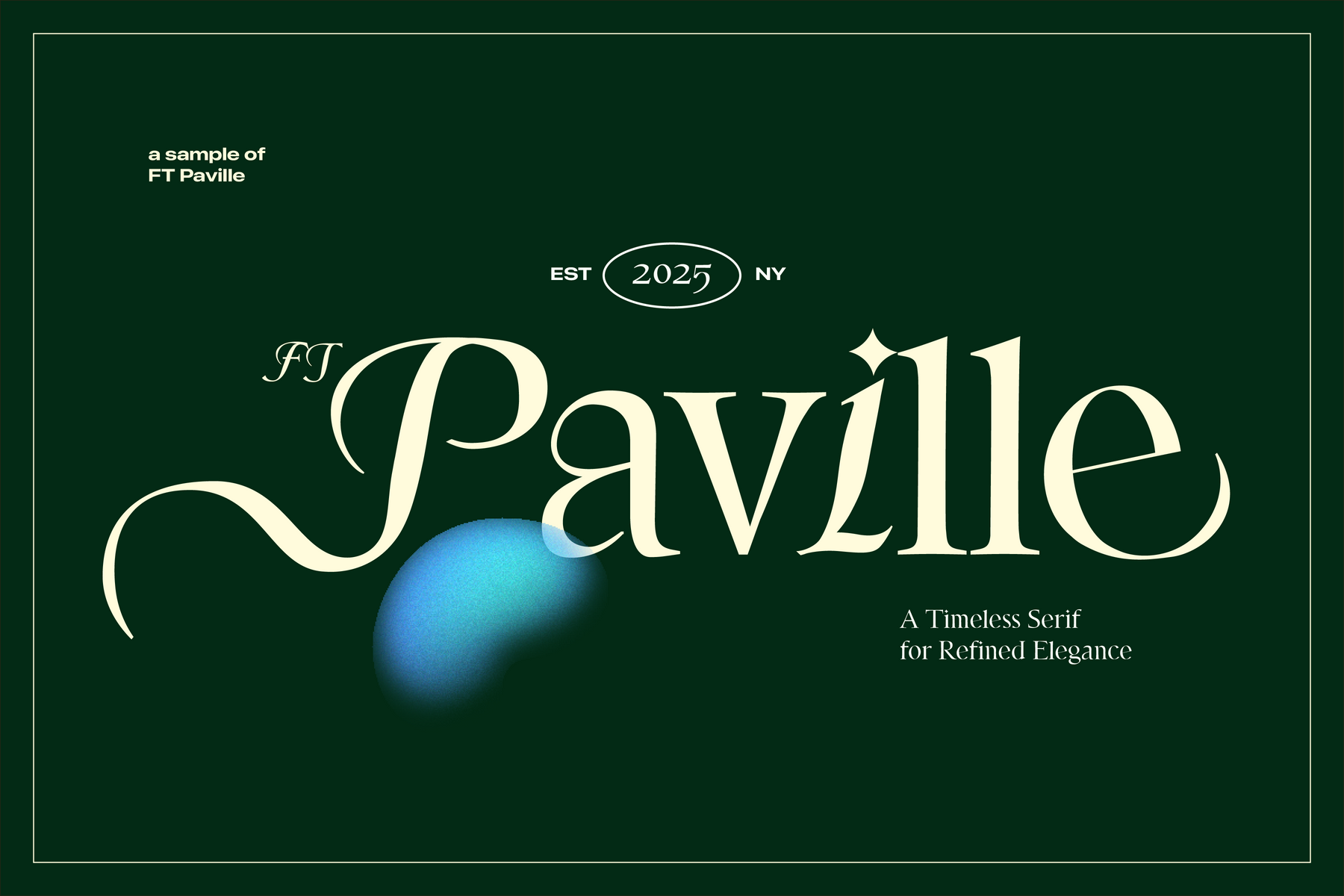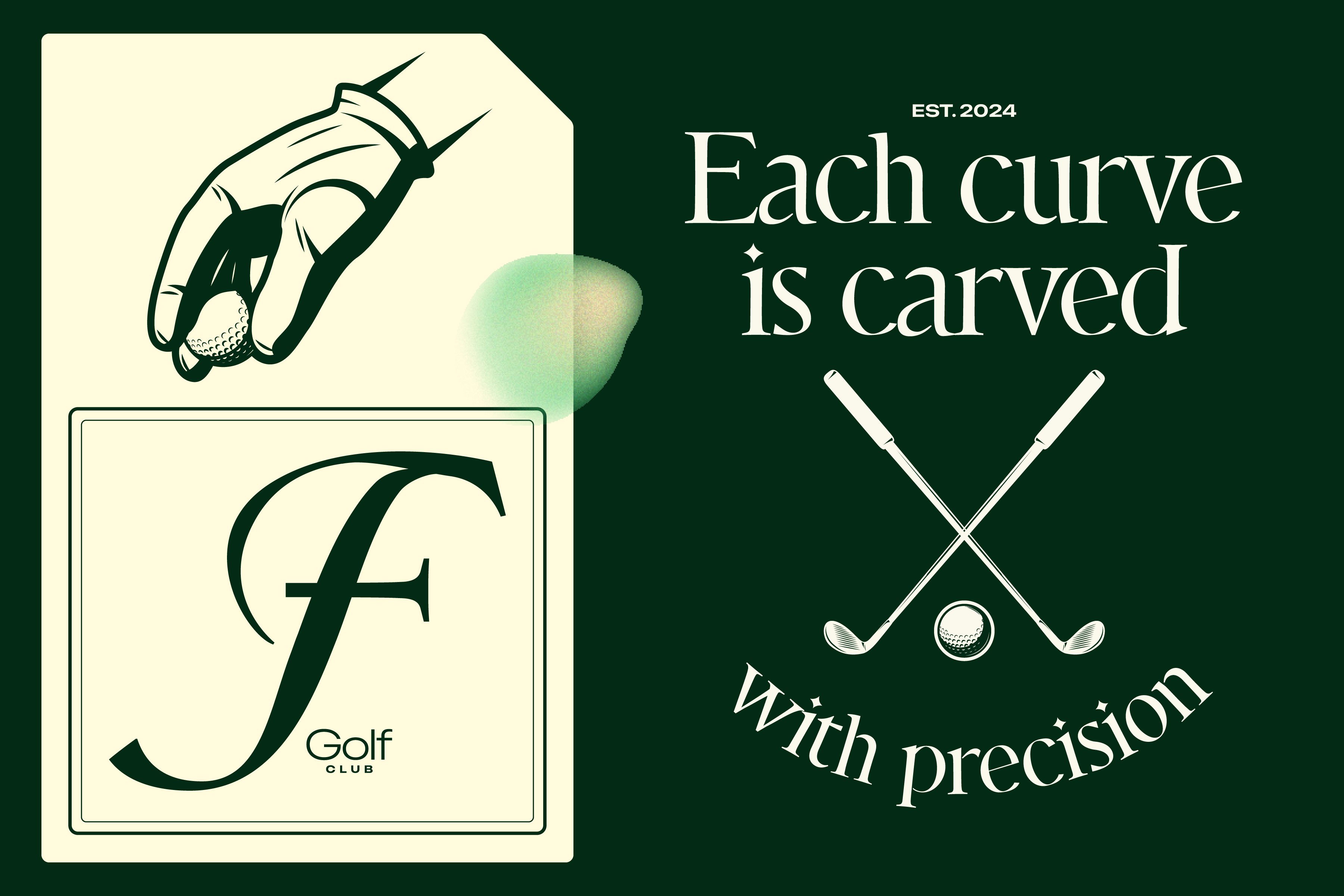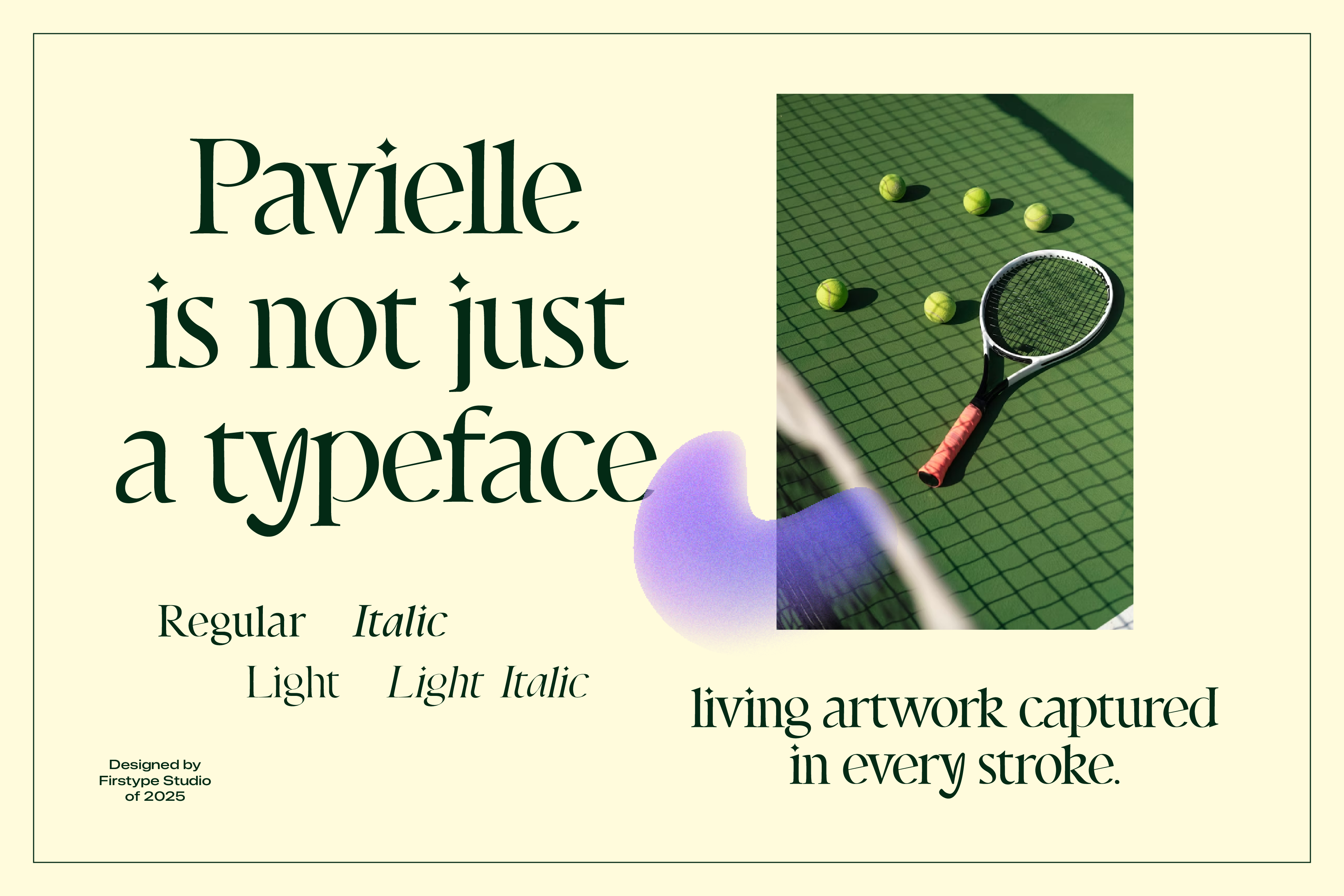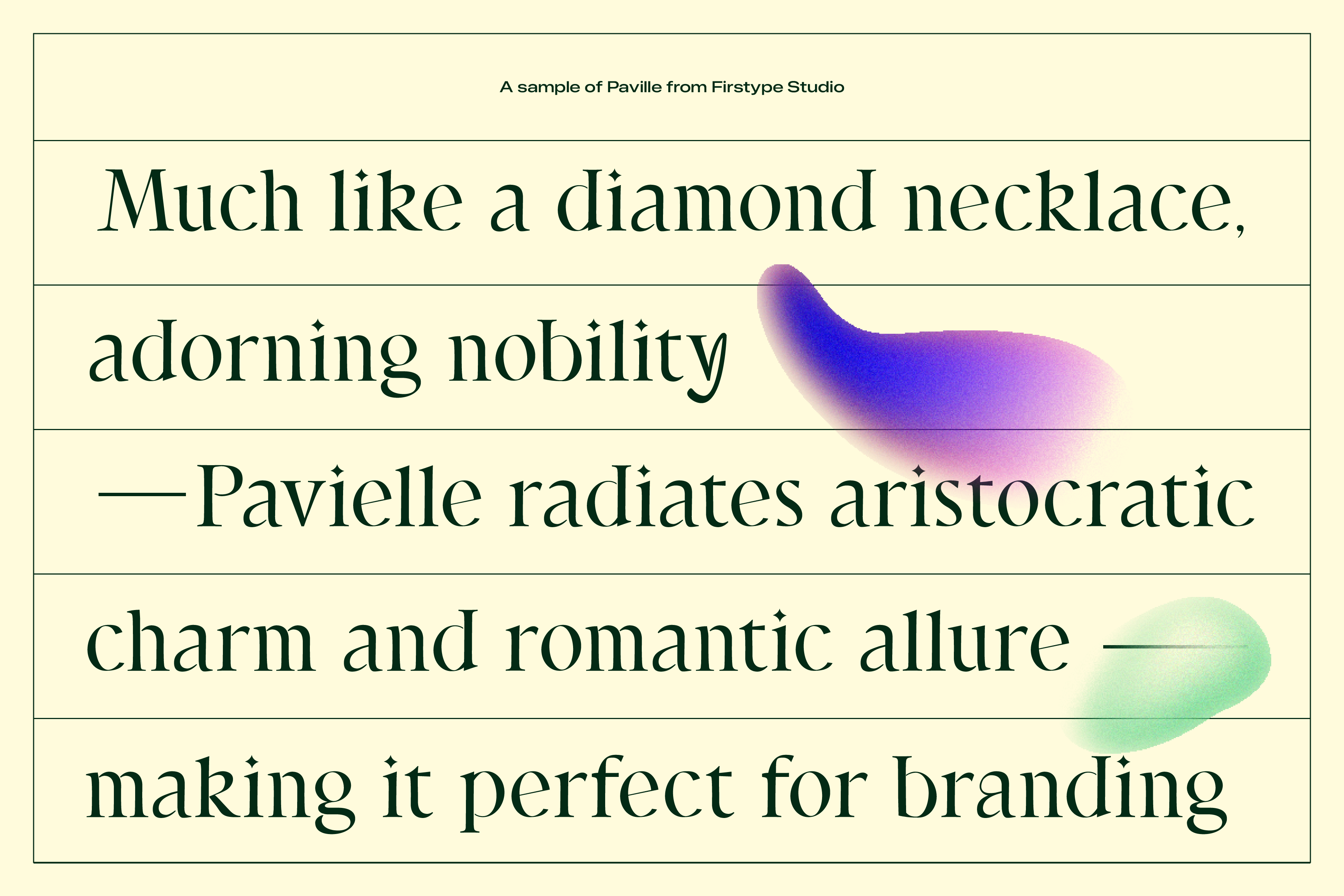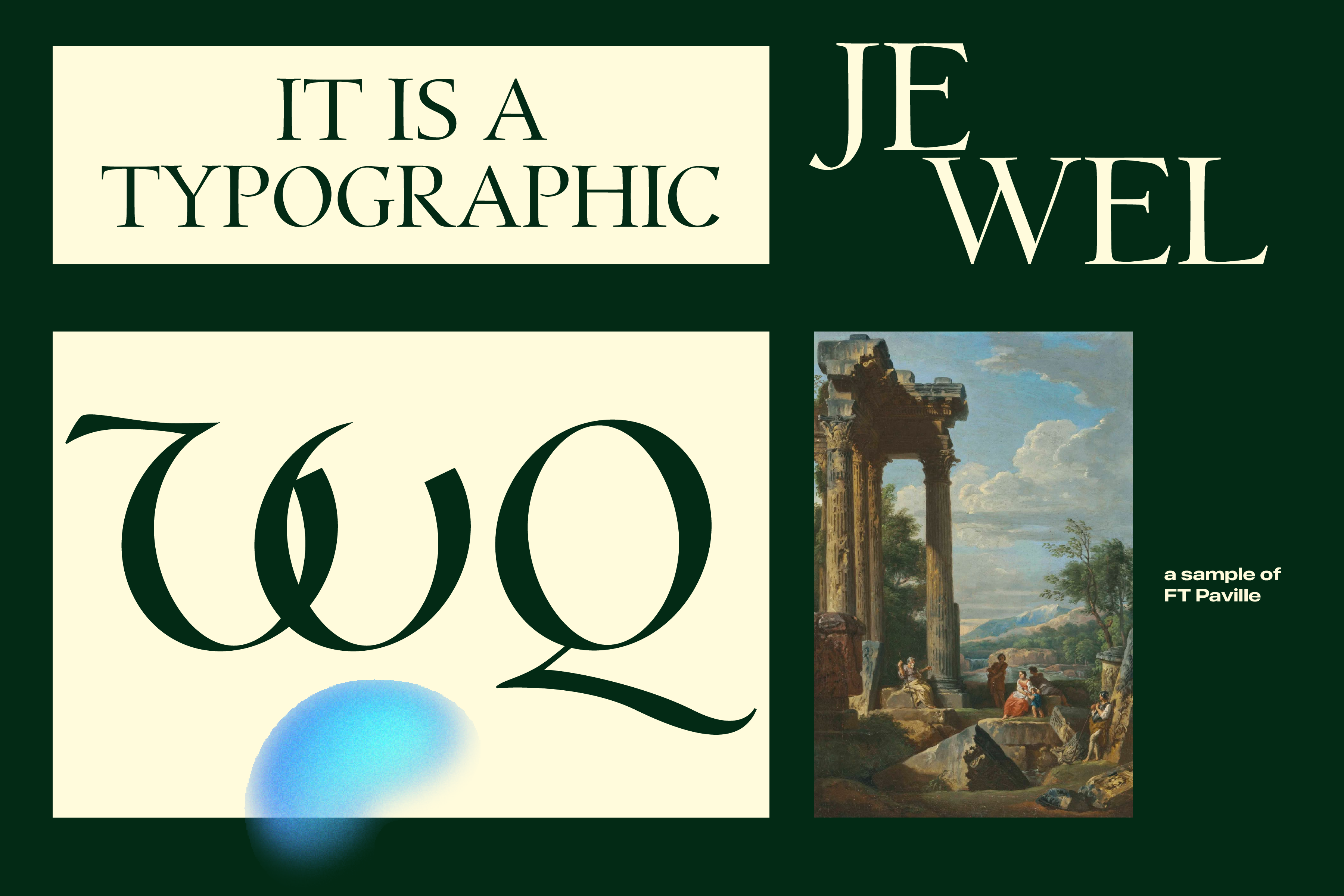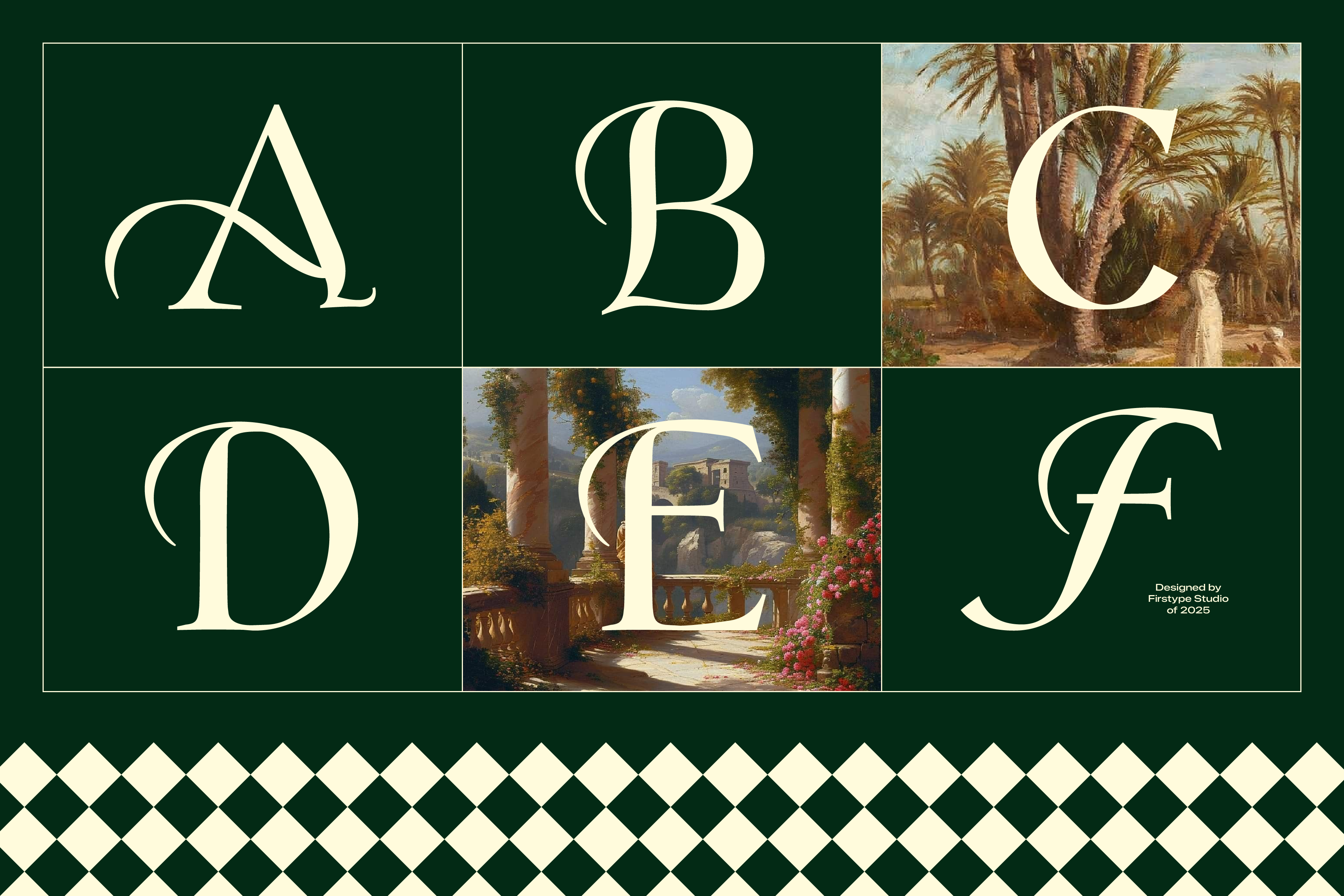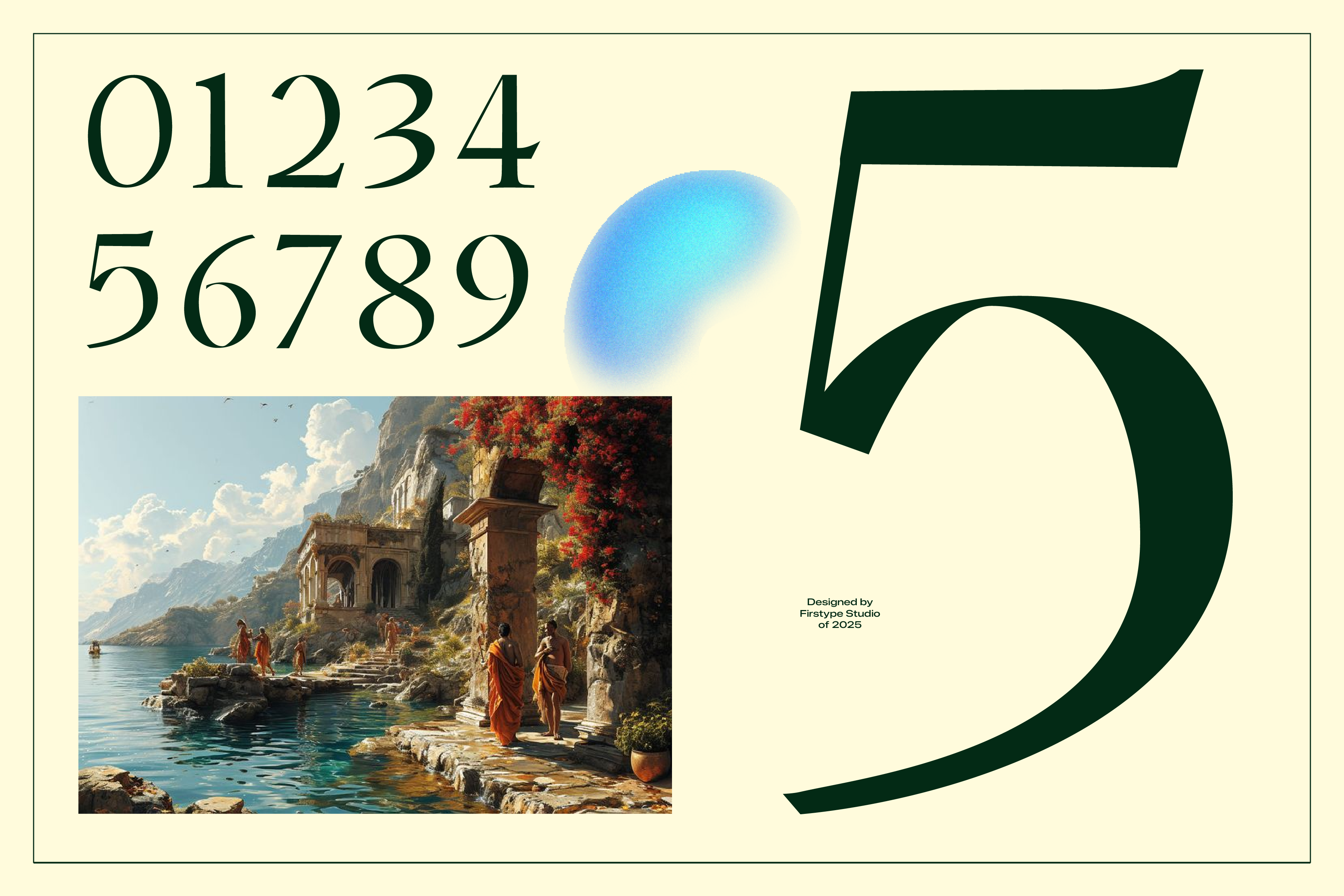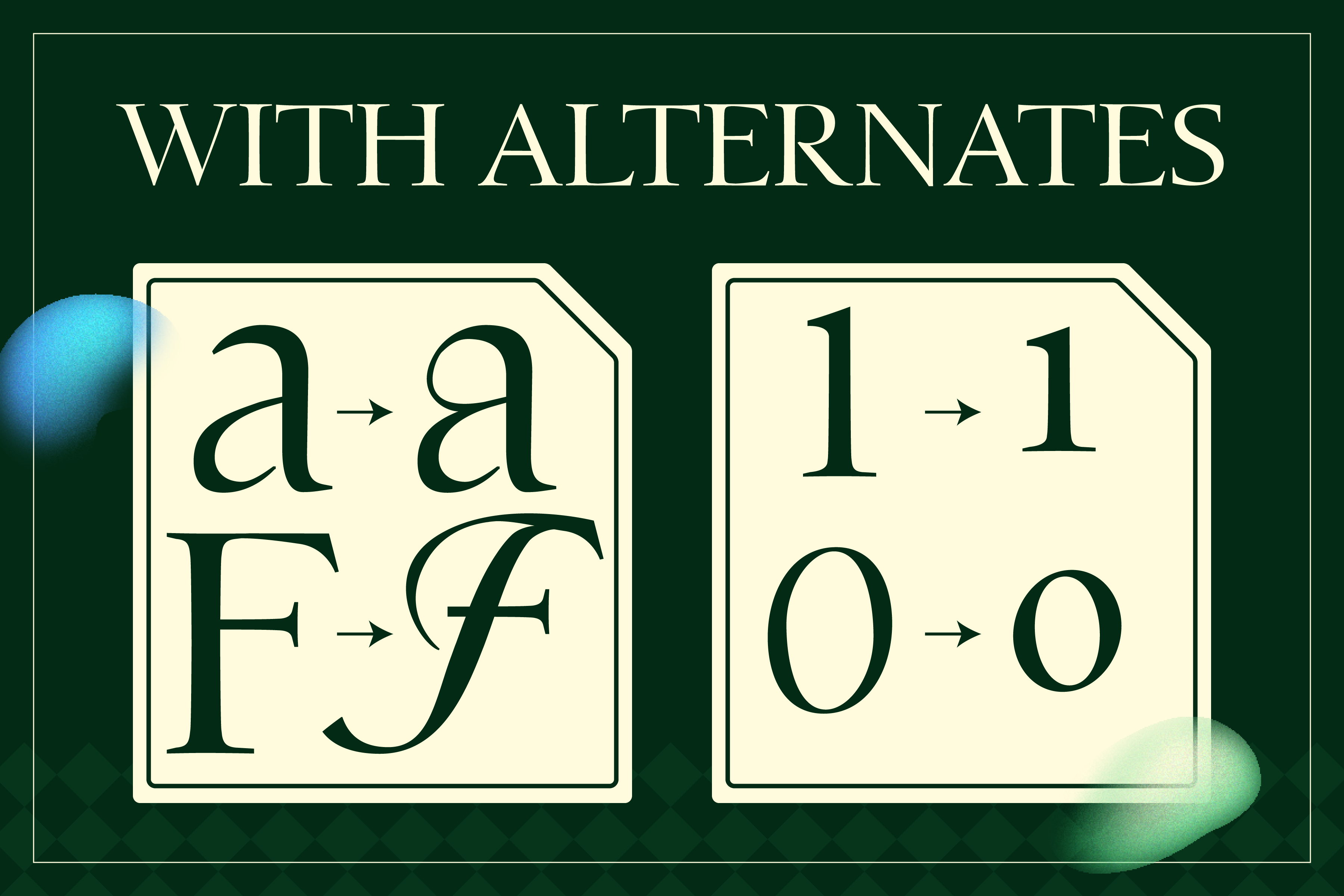
FT Paville | Modern Serif Font
Firstype Studio
FT Paville | Modern Serif Font
FT Paville created by Firstype Studio is a modern serif font created for branding concepts, editorial previews, and personal projects.